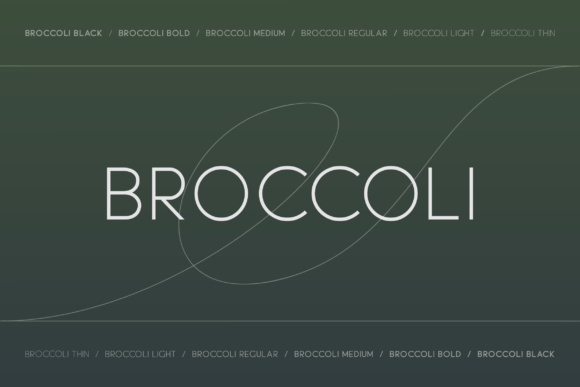
Broccoli Font: A Fun and Quirky Sans-Serif Font for Your Design Needs
Are you looking for a font that can add a touch of fun and quirkiness to your designs? Look no further than the Broccoli font. This all-caps sans-serif font is versatile, clean, and perfect for a wide range of applications. In this article, we’ll take a closer look at the Broccoli font, its features, and how you can use it to elevate your designs.
What is Broccoli Font?
Broccoli font is a sans-serif typeface that is designed to be fun, quirky, and highly versatile. It’s an all-caps font, which means it’s perfect for headlines, titles, and other applications where you want to make a bold statement. The font features smooth and clean lines, with just a touch of contrast to give it some visual interest.
Key Features of Broccoli Font
So, what makes Broccoli font so special? Here are some of its key features:
- All-caps design: Broccoli font is designed specifically for all-caps use, making it perfect for headlines, titles, and other applications where you want to make a bold statement.
- Smooth and clean lines: The font features smooth and clean lines, which give it a modern and sophisticated look.
- Touch of contrast: Broccoli font has just a touch of contrast, which adds some visual interest and helps to make it stand out.
- Highly versatile: This font is incredibly versatile and can be used in a wide range of applications, from logos and branding to web headings and more.
Uses for Broccoli Font
So, what can you use Broccoli font for? The possibilities are endless, but here are some ideas to get you started:
- Logos and branding: Broccoli font is perfect for logos and branding, thanks to its bold and eye-catching design.
- Web headings: The font is also great for web headings, where you want to make a bold statement and grab the attention of your visitors.
- Signage and advertising: Broccoli font is perfect for signage and advertising, where you want to make a big impact and stand out from the crowd.
- Packaging and labels: The font is also great for packaging and labels, where you want to add a touch of personality and whimsy to your designs.
Benefits of Using Broccoli Font
So, why should you choose Broccoli font for your designs? Here are some of the benefits of using this font:
- Unique and eye-catching: Broccoli font is a unique and eye-catching font that can help you to stand out from the crowd.
- Highly versatile: The font is incredibly versatile and can be used in a wide range of applications.
- Easy to read: Despite its bold and quirky design, Broccoli font is easy to read, even at small sizes.
- Customizable: The font is highly customizable, so you can adjust it to fit your specific design needs.
How to Use Broccoli Font
So, how do you use Broccoli font in your designs? Here are some tips to get you started:
- Choose the right size: Broccoli font is perfect for headlines and titles, so choose a size that’s big enough to make an impact.
- Experiment with colors: The font looks great in a wide range of colors, so don’t be afraid to experiment and find the perfect color for your design.
- Pair it with other fonts: Broccoli font pairs well with a wide range of other fonts, so don’t be afraid to get creative and try out different combinations.
- Use it consistently: To get the most out of Broccoli font, use it consistently throughout your design.
In conclusion, Broccoli font is a fun and quirky sans-serif font that’s perfect for a wide range of design applications. Its smooth and clean lines, combined with just a touch of contrast, make it a highly versatile font that can be used in everything from logos and branding to web headings and more. With its unique and eye-catching design, ease of use, and customizability, Broccoli font is a great choice for designers who want to add a touch of personality and whimsy to their designs.